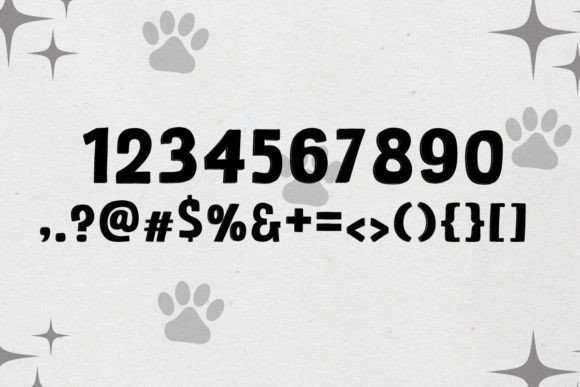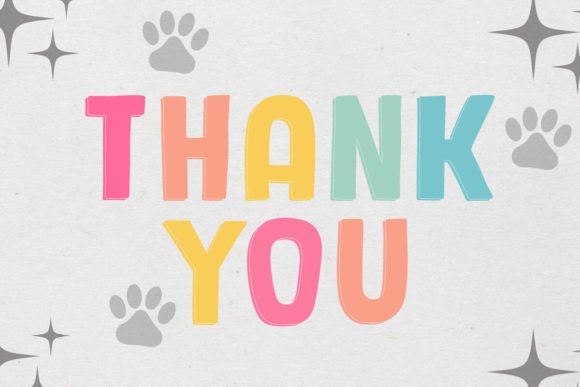
Introducing Dog Mama Font: The Perfect Choice for Kids’ Designs and More!
Are you a designer, crafter, or DIY enthusiast looking for a font that’s both cute and versatile? Look no further than Dog Mama Font! This adorable font is perfect for kids’ projects, and its bold design makes it ideal for display purposes. In this article, we’ll explore the features and benefits of Dog Mama Font, and show you how it can elevate your design projects.
What Makes Dog Mama Font So Special?
Dog Mama Font is a unique and charming font that’s specifically designed to capture the hearts of kids and adults alike. Its bold and playful design makes it perfect for a wide range of applications, from posters and t-shirts to mugs, planners, and stickers. Whether you’re working on a kids’ project, creating home decor, or designing social media posts, Dog Mama Font is the perfect choice.
Key Features of Dog Mama Font
- Supports all English language characters: Dog Mama Font is designed to support all characters of the English language, making it a versatile choice for designers and crafters.
- Bold and playful design: The font’s bold and playful design makes it perfect for display purposes, and its cute aesthetic is sure to delight kids and adults alike.
- Perfect for kids’ projects: Dog Mama Font is ideal for kids’ projects, including school assignments, crafts, and activities.
Endless Design Possibilities with Dog Mama Font
Dog Mama Font is an incredibly versatile font that can be used for a wide range of design projects. Here are some ideas to get you started:
- Posters and flyers: Create eye-catching posters and flyers for kids’ events, parties, and activities.
- T-shirts and apparel: Design custom t-shirts, hoodies, and other apparel for kids and adults.
- Mugs and ceramics: Add a personal touch to mugs, plates, and other ceramics with Dog Mama Font.
- Kids’ projects and crafts: Use Dog Mama Font to create fun and engaging kids’ projects, such as stickers, coloring pages, and activity sheets.
- Planners and organizers: Design custom planners, journals, and organizers that are both functional and fun.
- Stickers and decals: Create custom stickers and decals for laptops, water bottles, and other items.
- Home decor: Use Dog Mama Font to design custom home decor items, such as wall art, signs, and banners.
- Invitations and stationery: Create beautiful and unique invitations, stationery, and greeting cards.
- Social media posts: Use Dog Mama Font to create eye-catching social media posts that are sure to engage your audience.
Why Choose Dog Mama Font?
With so many fonts available, why choose Dog Mama Font? Here are just a few reasons why designers and crafters love this font:
- Unique and playful design: Dog Mama Font is a one-of-a-kind font that’s sure to stand out from the crowd.
- Easy to read: Despite its bold design, Dog Mama Font is easy to read, making it perfect for display purposes.
- Versatile: Dog Mama Font can be used for a wide range of design projects, from kids’ projects to commercial applications.
- Supports all English language characters: You can use Dog Mama Font with confidence, knowing it will support all characters of the English language.
Dog Mama Font is a charming and versatile font that’s perfect for designers, crafters, and DIY enthusiasts. Its bold and playful design makes it ideal for kids’ projects, display purposes, and commercial applications. With its support for all English language characters and endless design possibilities, Dog Mama Font is a must-have font for anyone looking to add a touch of whimsy and fun to their designs.